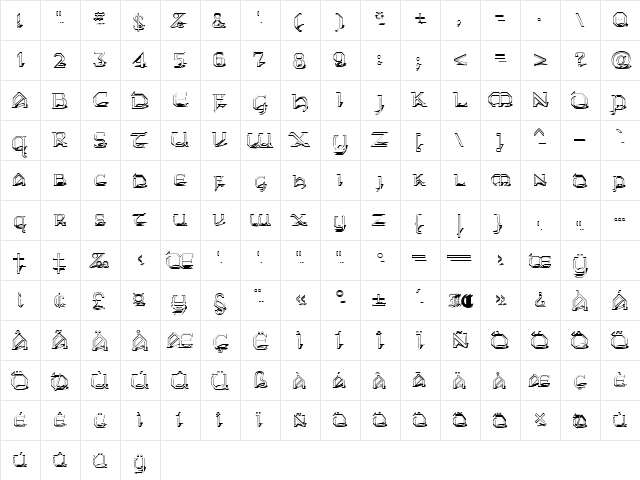
KarthagoShadow Regular
Design Context for KarthagoShadow Typeface
KarthagoShadow is built around its visual character rather than neutral utility — its distinctive forms are designed to make an impression at display sizes.
Font Pairing: Pair with a clean neutral sans-serif for body copy to let KarthagoShadow's character lead without overwhelming the composition.
Pro Tip: Treat KarthagoShadow as the centrepiece of your typographic hierarchy. One strong heading set in a decorative face can carry an entire layout.